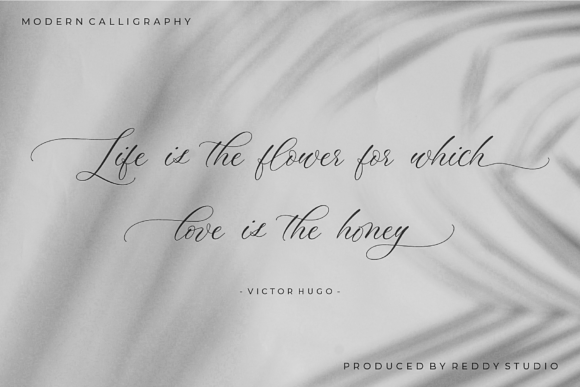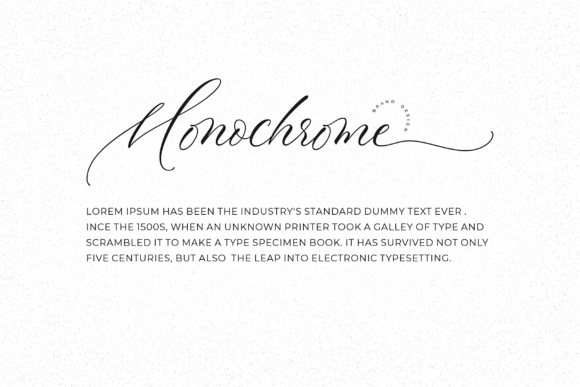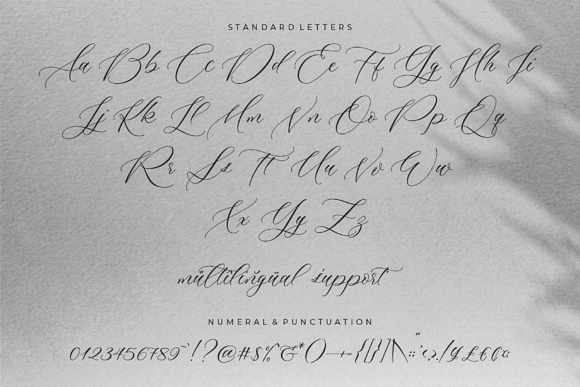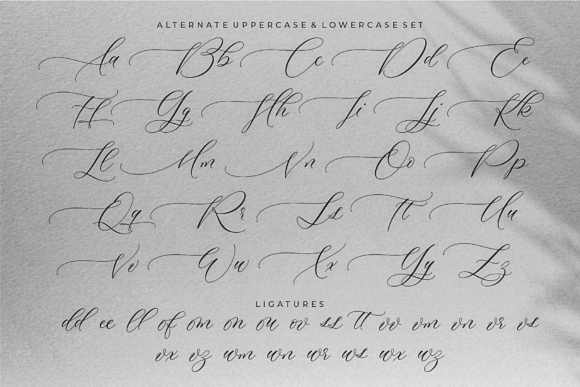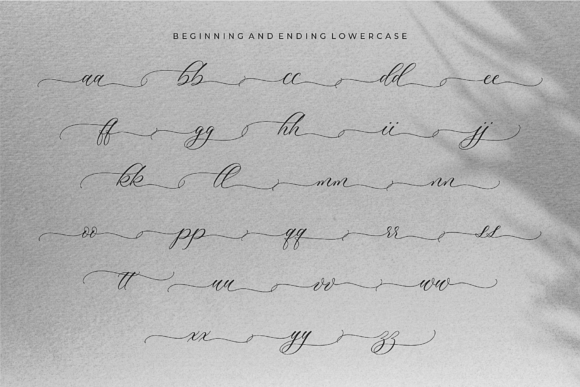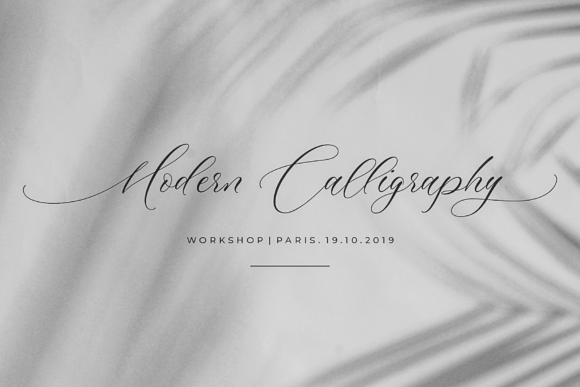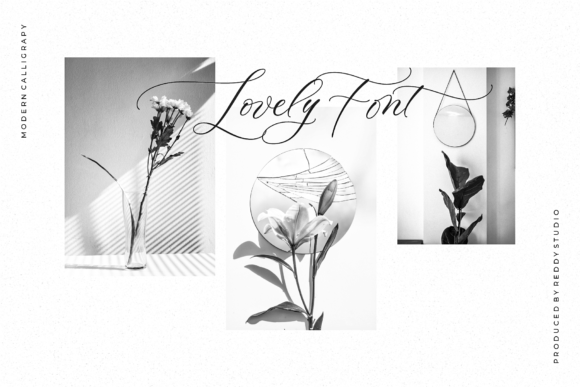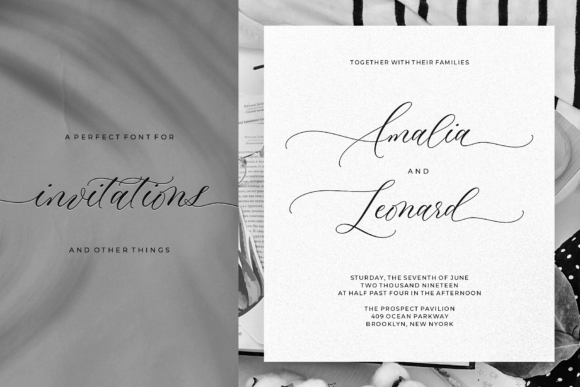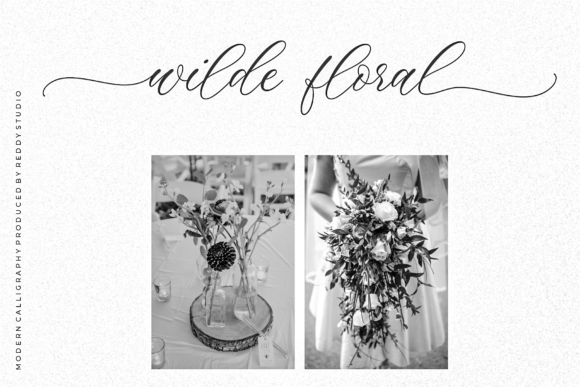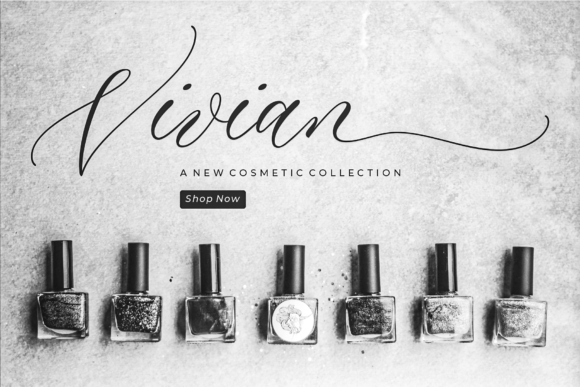
Multiverse Font
About Multiverse Font
Multiverse is versatile and authentic a handwritten font with dynamic hand-drawn strokes.
This natural stroke makes this font look great and can be easily paired with other fonts.
Complete with ligatures, swashes and international language characters.